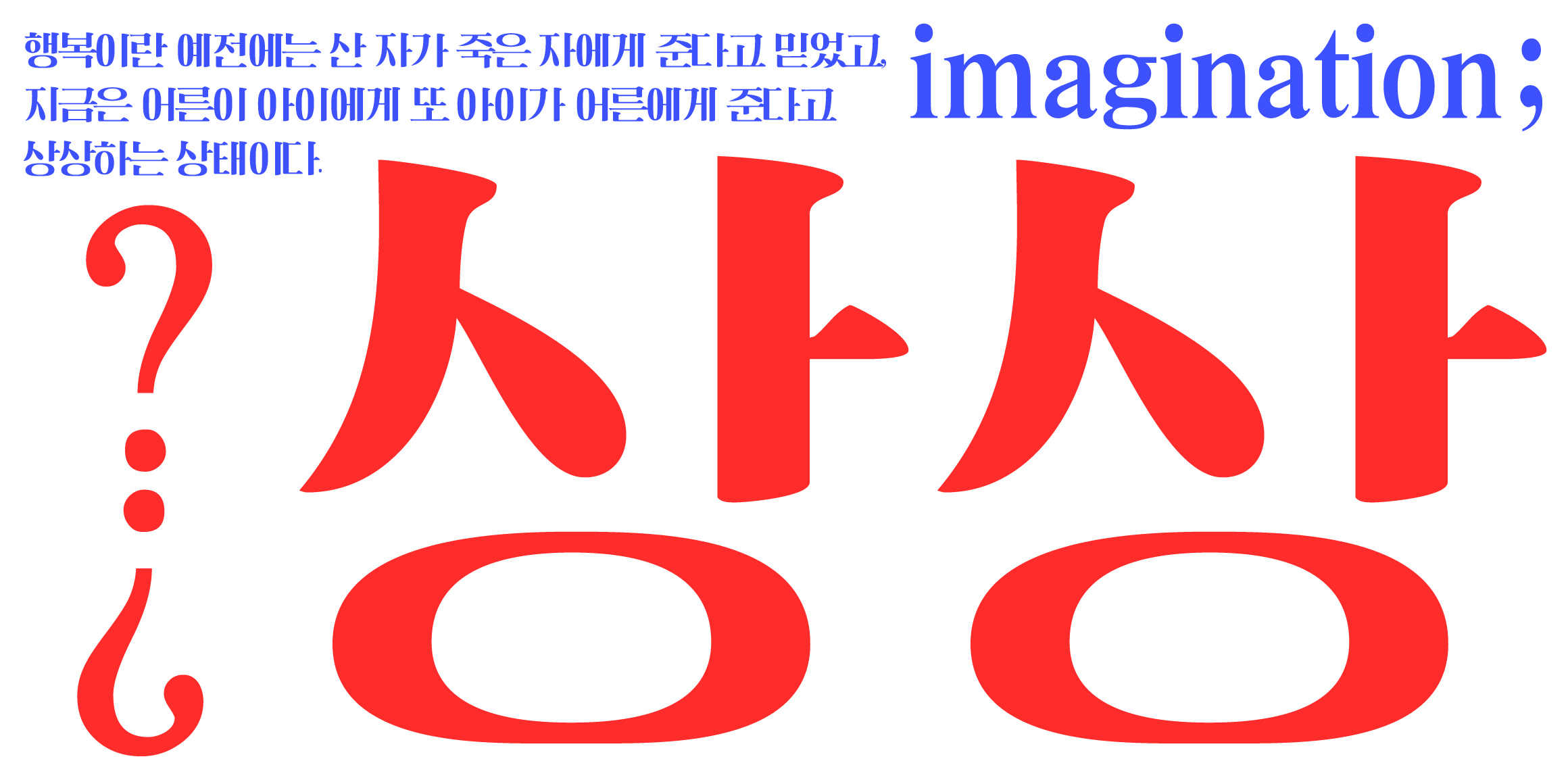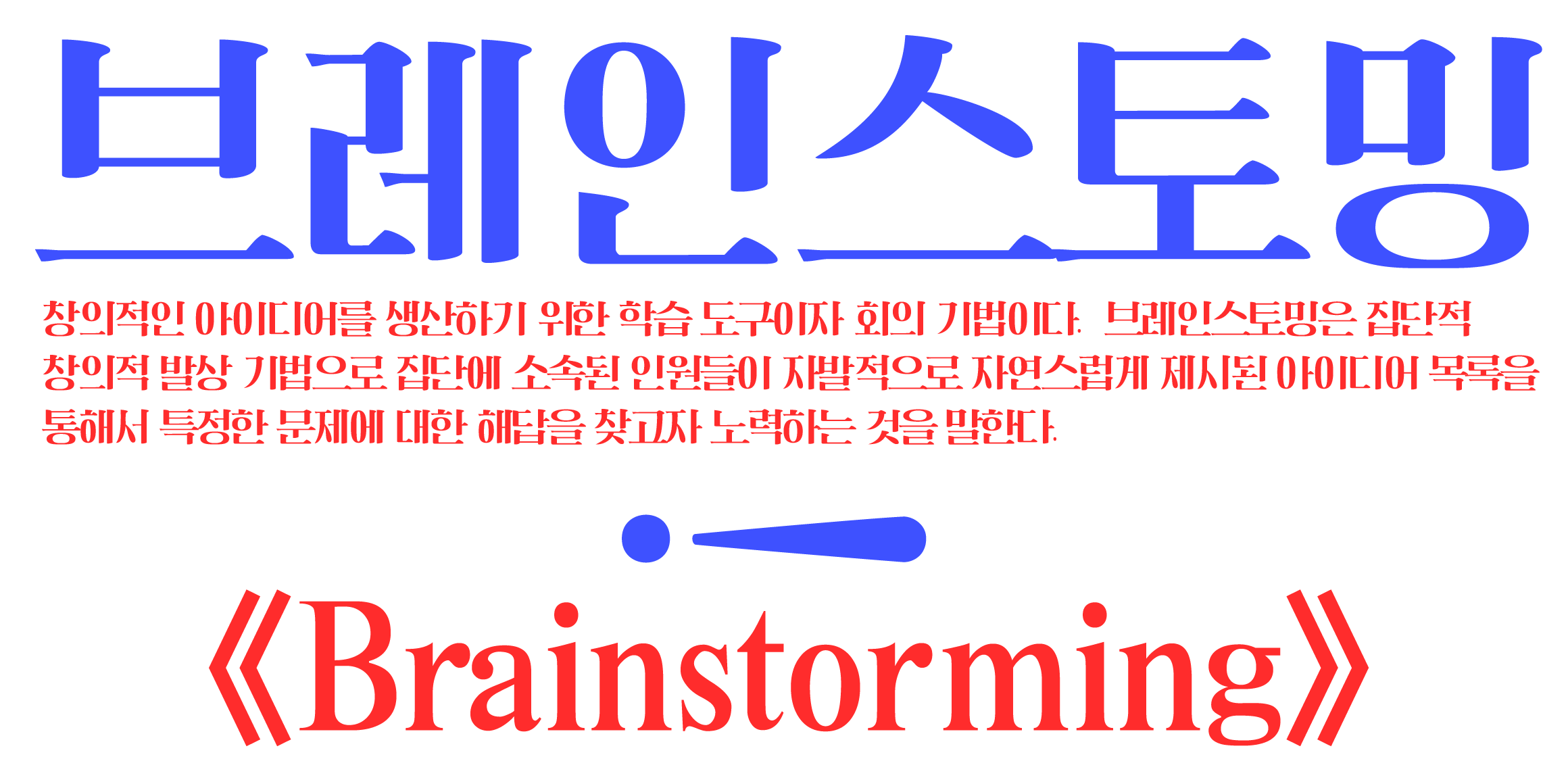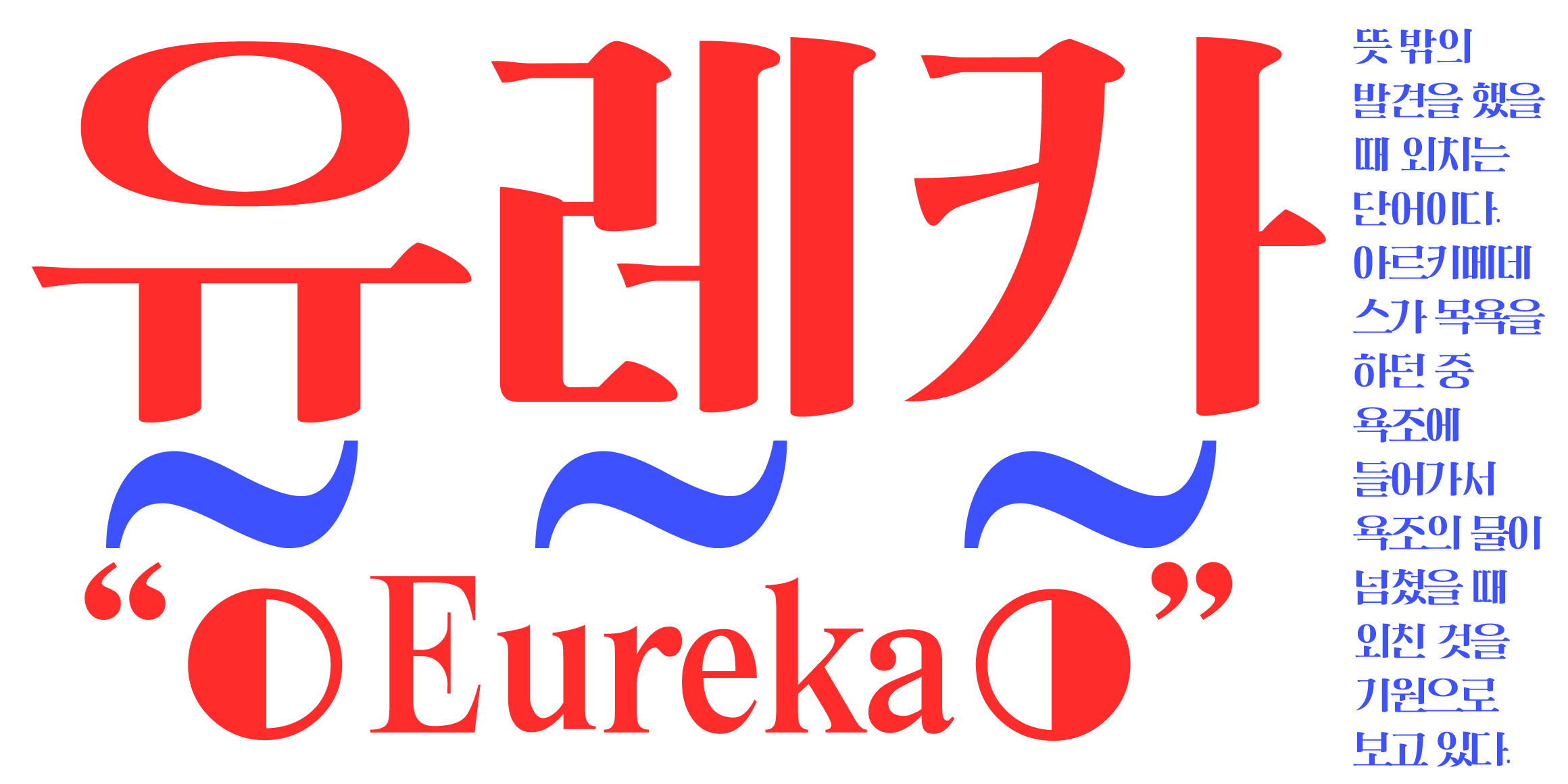
JYeonnamdongMyungjo
JYeonnamdongMyungjo is striking headline typeface for titles that contains the characteristics of a vintage-style chart and serif fonts. The full square structure has a distinctive stroke contrast, giving it a retro feeling.